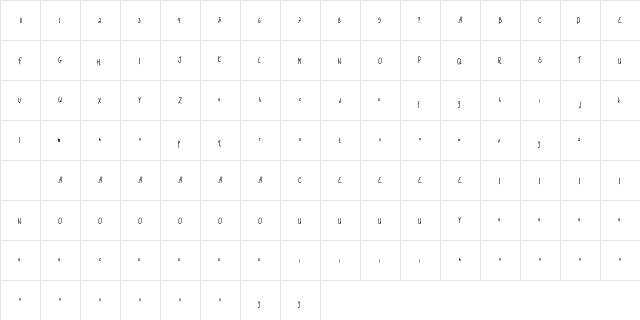
Butterflyna Demo Regular
| Foundry | Faceless Creative |
| Designer | Rizki Ali Khoir |
Design Context for Butterflyna Demo Typeface
Butterflyna Demo is a composed and adaptable typeface that performs quietly and consistently across a wide range of design contexts.